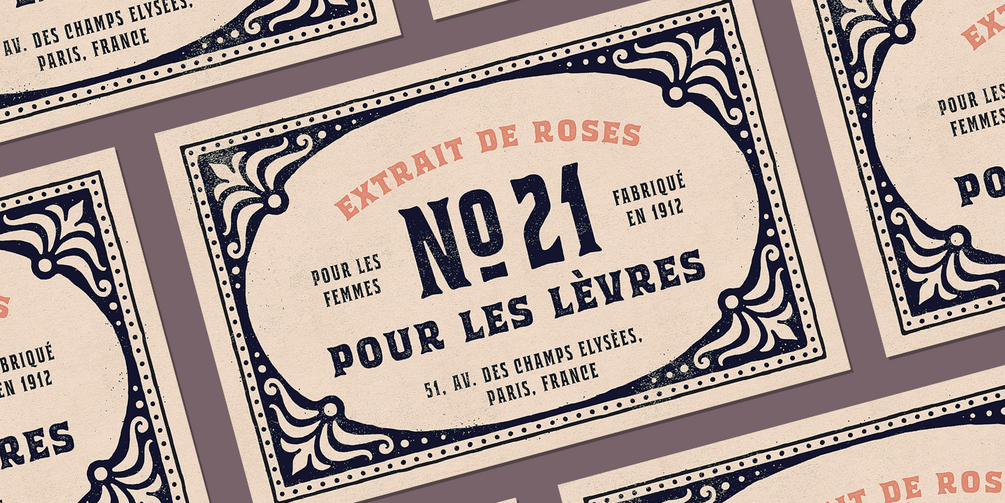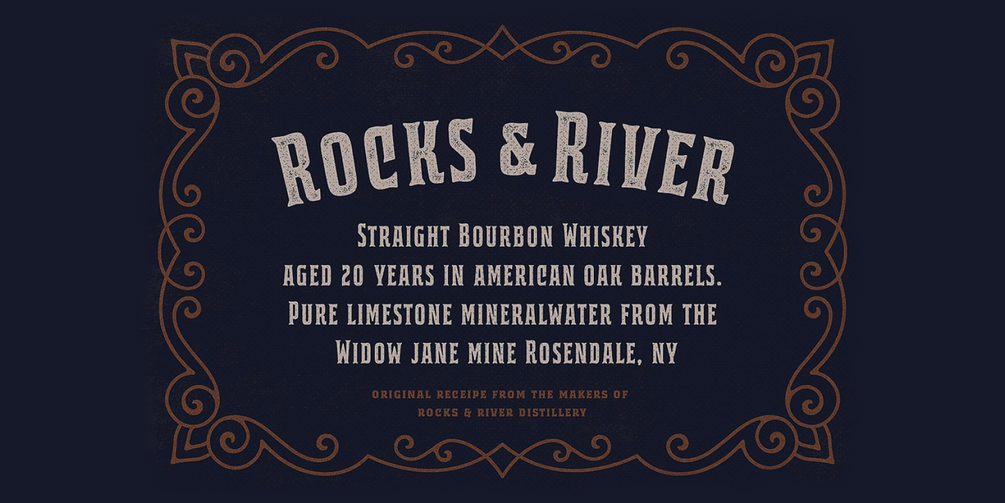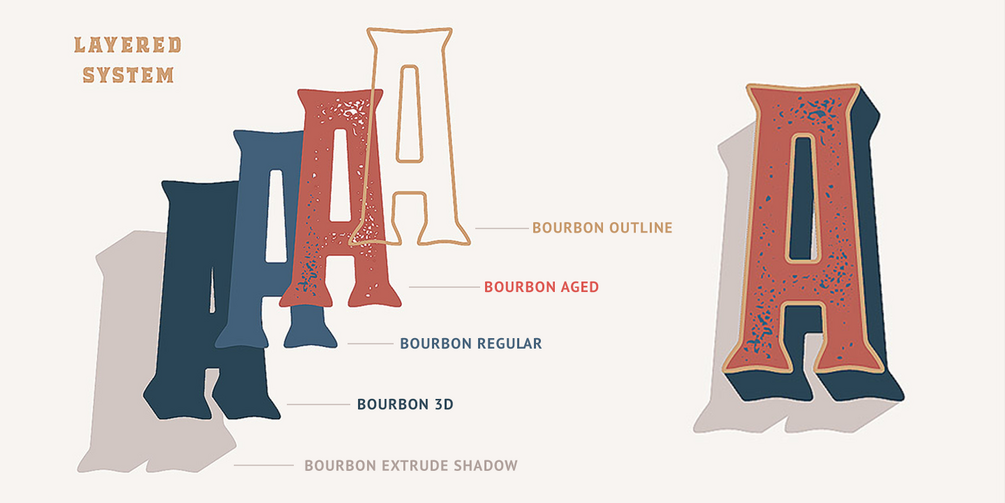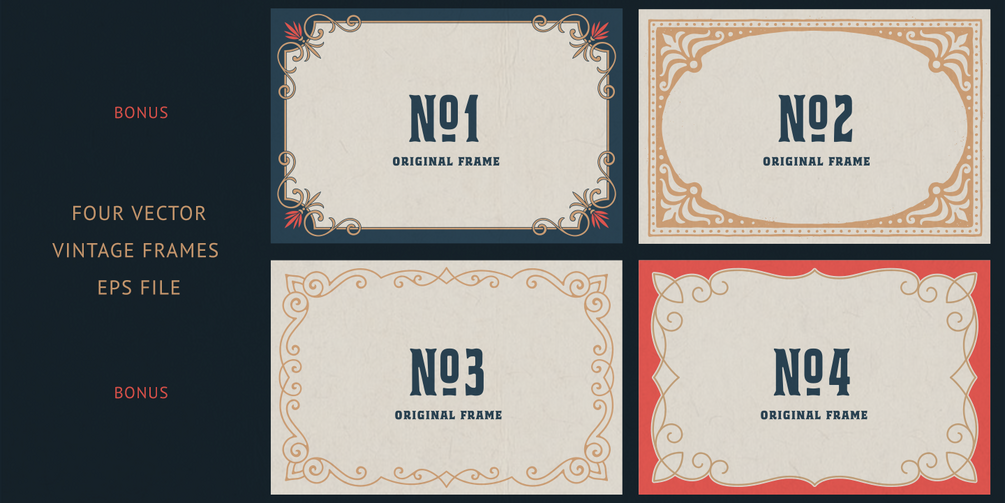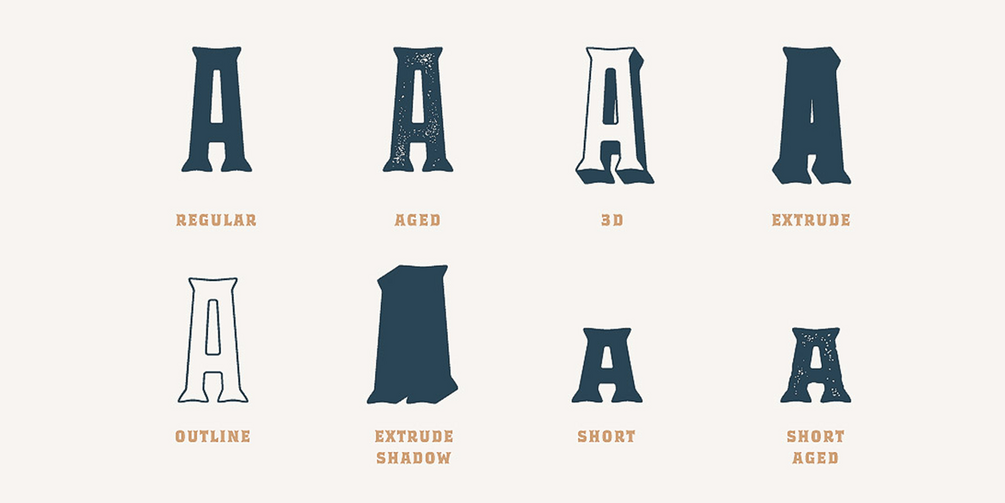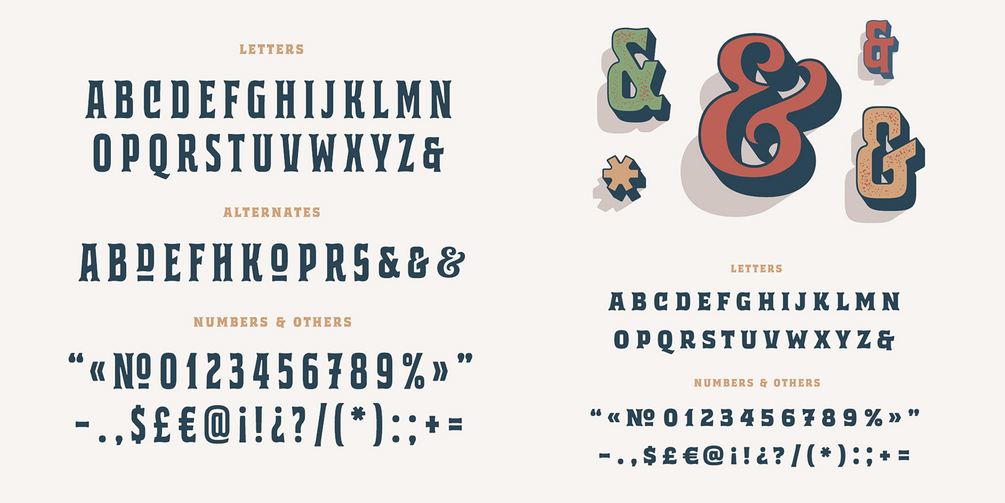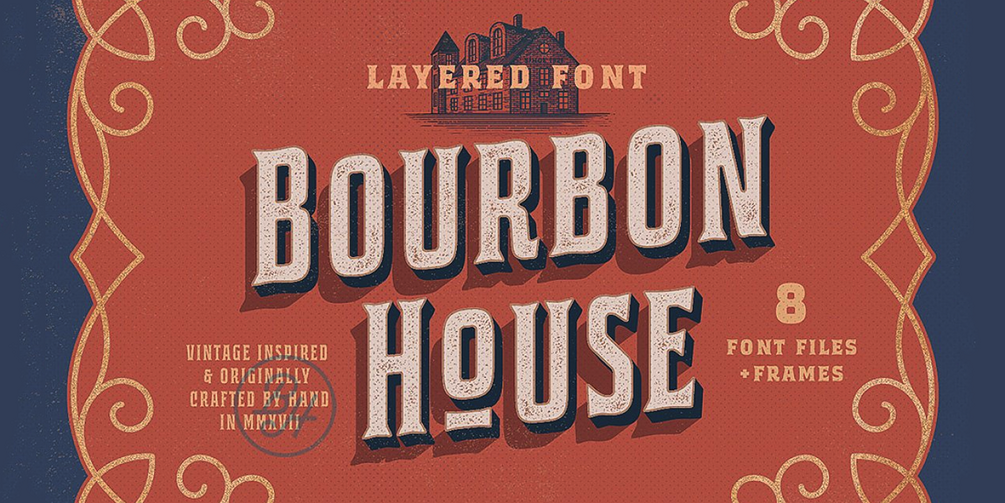
Bourbon House Font
Bourbon House is a layered type family inspired by classic whiskey labels and traditional sign painting. Its bold, all-caps serif letters look great on vintage-style labels, logos, packaging, headlines, and text blocks. The family includes 8 different styles, giving you plenty of creative flexibility in your designs.
The condensed fonts in Bourbon House feature alternate characters, which can be accessed by adding .2 after a letter or by enabling stylistic alternates in the OpenType panel. In addition, the product includes a set of 4 vintage frames that perfectly complement your typographic compositions — you can see them in the presentation examples.